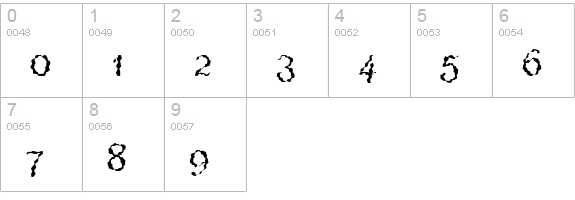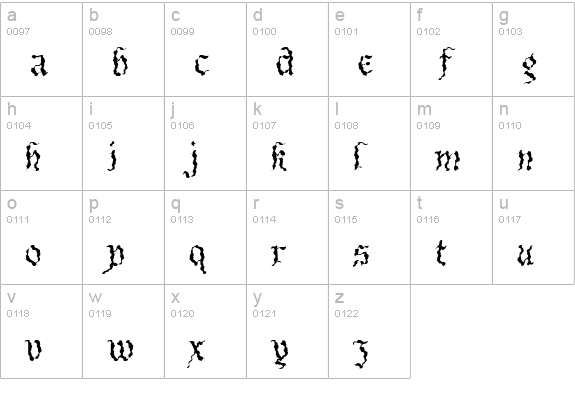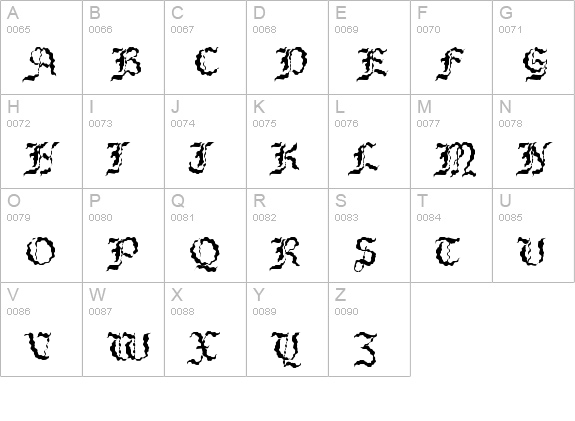
BeneCryptineDistorted Font Details
BeneCryptineDistorted font is a unique and edgy display typeface that is sure to make your designs stand out. With its distorted and cryptic appearance, this font exudes a mysterious and futuristic vibe. The irregular letter shapes and jagged edges give it a rebellious and unconventional look, perfect for projects that require a bold and daring touch. The best part? BeneCryptineDistorted font is completely free to use! You can easily download it at FontsMarket.com and start incorporating its captivating style into your designs right away. Whether you're working on posters, album covers, logos, or anything in between, this font is sure to add a touch of intrigue and personality to your work. Don't miss out on the opportunity to enhance your designs with this striking and unconventional typeface - download BeneCryptineDistorted font today!